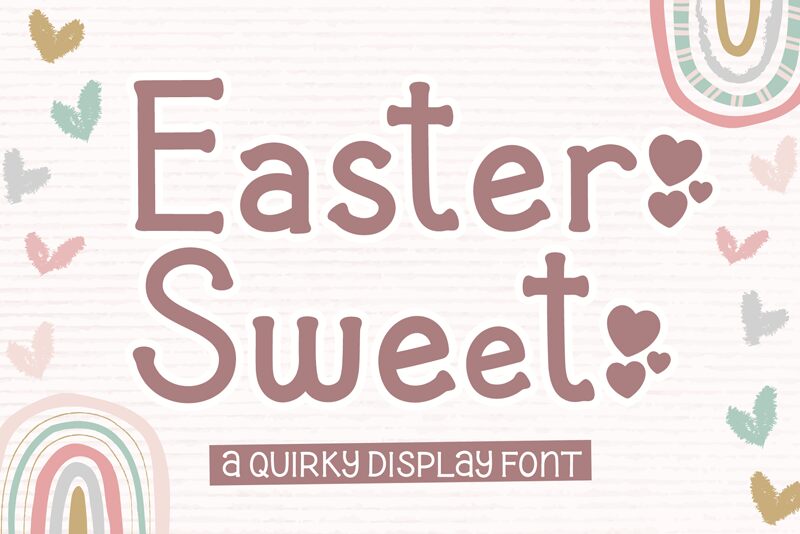
Easter Sweet
Easter Sweet font by AEN Creative Studio is a free decorative display typeface with a soft, handmade charm. Its rounded strokes, gentle curves, and slightly bouncy rhythm feel like lettering on a cozy bakery window or a hand-painted Easter card. The shapes are plump and friendly, giving every word a warm, storybook-like presence that’s easy to read yet full of personality.
Using Easter Sweet, you can bring a playful touch to kids’ party invitations, Easter greeting cards, classroom posters, craft printables, bakery or candy branding, and cheerful social media graphics. This free font shines at larger sizes where its quirky curves can really be seen; pair it with a clean sans serif for small text to keep your layouts clear and balanced.